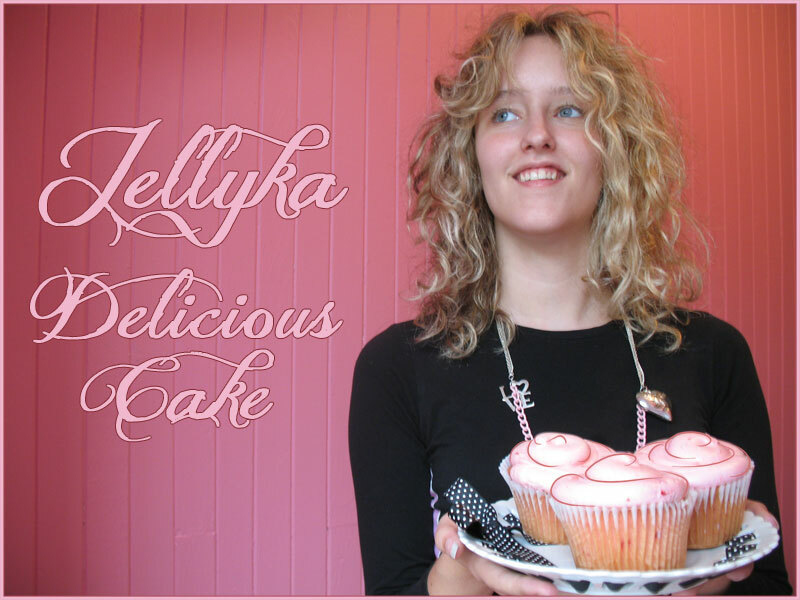
Jellyka Delicious Cake
Jellyka Delicious Cake by CuttyFruty is a free calligraphic script shaped by sweeping capitals, fine hairlines, and dark, sharply weighted downstrokes that shift with lively irregularity. The flourishes are unusually long, loose, and densely intertwined.
Wedding stationery and boutique food packaging make very different uses of its lavish detail, one ceremonial and the other sweetly indulgent. It also fits fashion editorials and album artwork, where extended strokes can mingle with photography, illustrations, or decorative borders, and in luxury branding those loops can turn a name into a highly recognizable signature-like mark rather than merely a line of conventional ordinary display lettering.